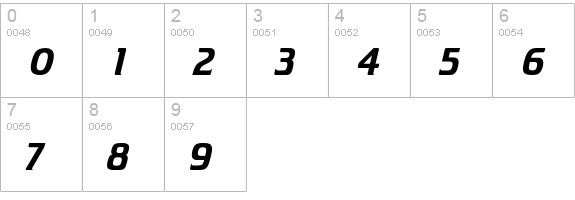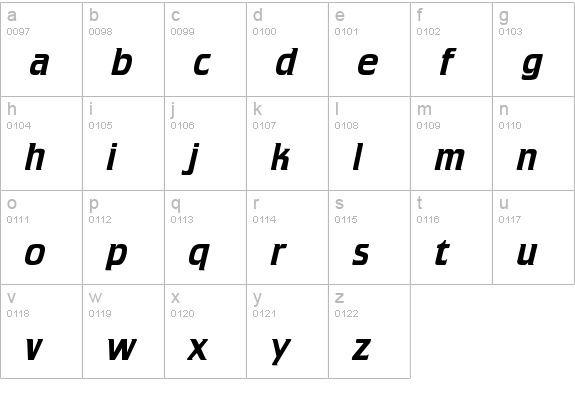
CrilleeEF-Italic Font Details
CrilleeEF-Italic is a distinctive, italic variant in the CrilleeEF typeface family \xE2\x80\x94 well suited to design and typography projects.
CrilleeEF-Italic font is an elegant and sophisticated typeface that exudes a sense of luxury and style. The italicized design adds a touch of flair and sophistication to any text, making it perfect for projects that require a touch of class. Its sleek and sleek appearance makes it suitable for a wide range of applications, from branding and marketing materials to invitations and signage. This font is not only visually appealing but also highly versatile, making it a great choice for both print and digital designs. The CrilleeEF-Italic font is free to download at FontsMarket.com, allowing you to access this stunning typeface at no cost. Whether you're a designer looking to elevate your projects or an individual seeking to add a touch of elegance to your personal creations, the CrilleeEF-Italic font is sure to impress with its timeless beauty and versatility. Download it now and enhance your designs with this exquisite typeface.